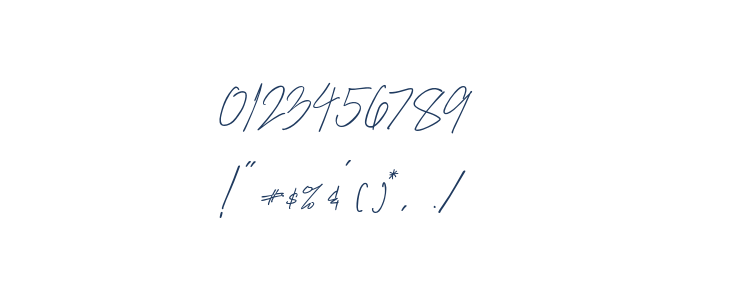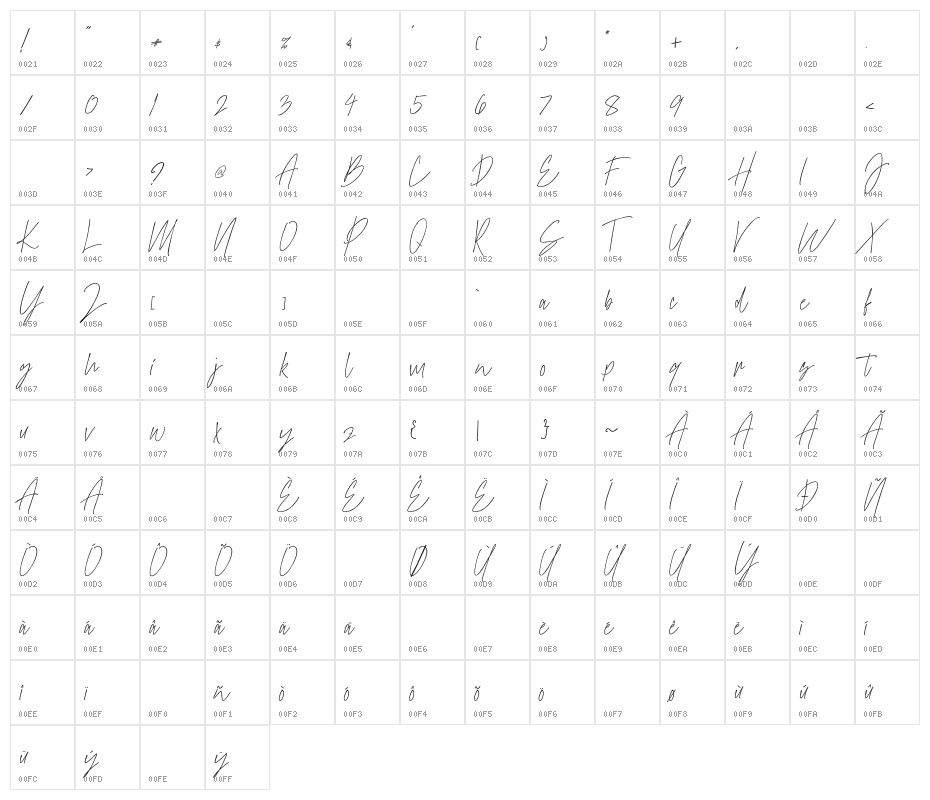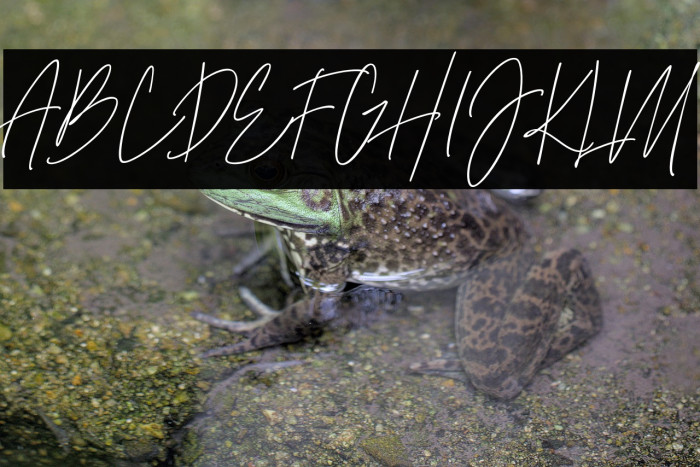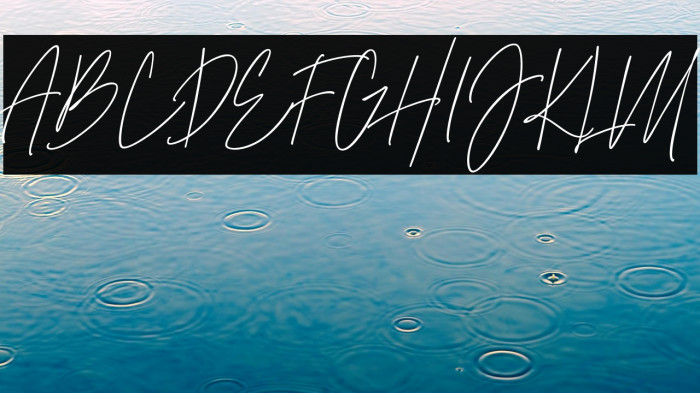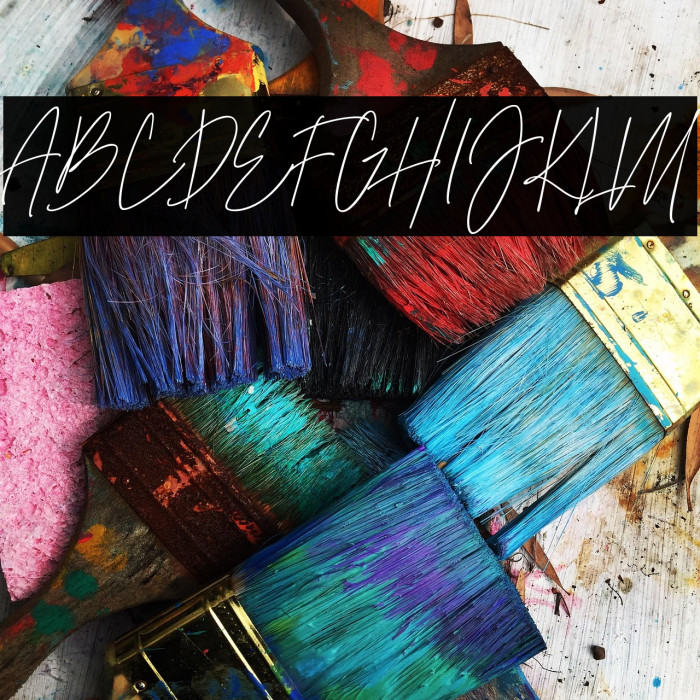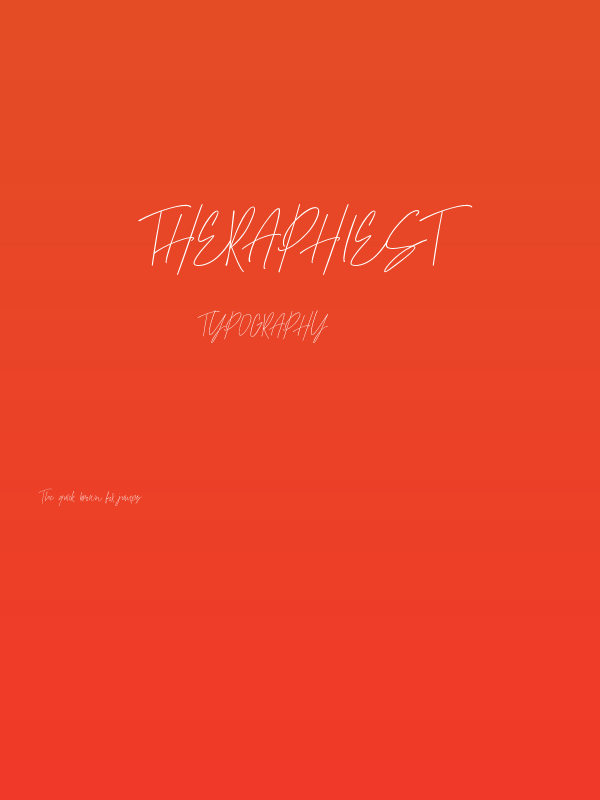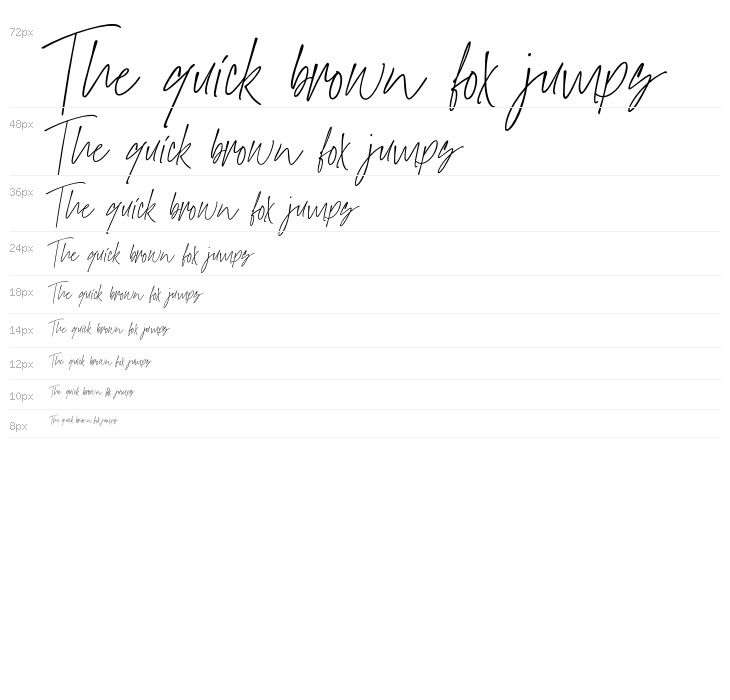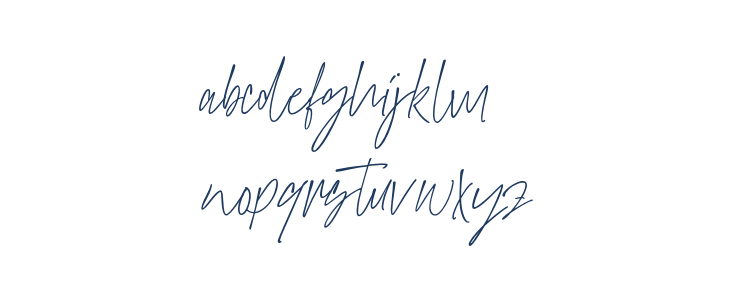
theraphiest Font
theraphiest Description
This font features a dynamic and fluid handwritten style, characterized by its elegant and elongated letterforms. The strokes are smooth and continuous, giving it a natural and personal touch. It maintains a consistent flow throughout, with each character seamlessly connecting to the next. The uppercase letters are tall and slightly slanted, while the lowercase letters are more compact and rounded. The numerals and special characters follow the same fluid style, ensuring a cohesive look across all elements. This font exudes a sense of sophistication and creativity, making it ideal for projects that require a personal and artistic flair.